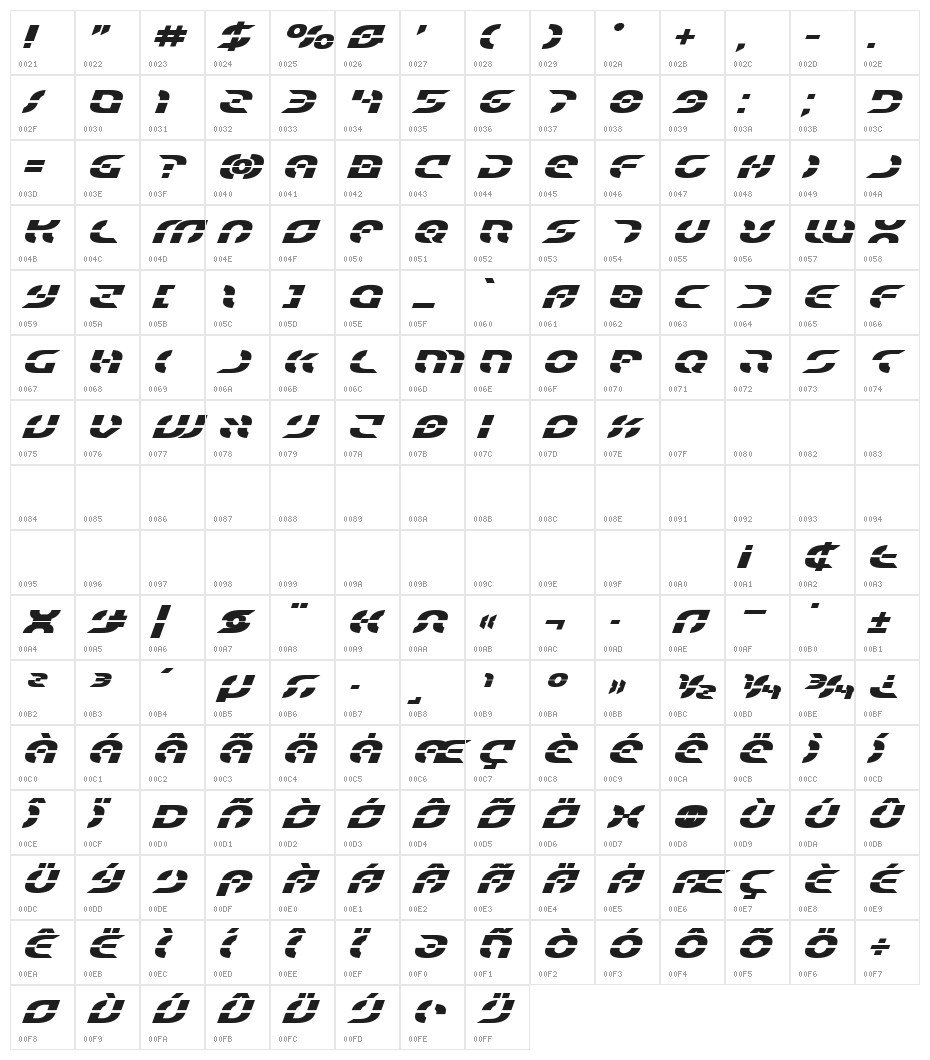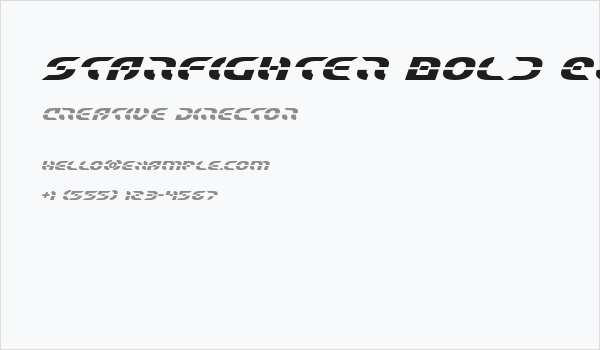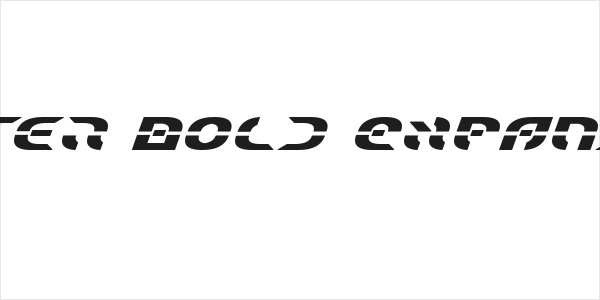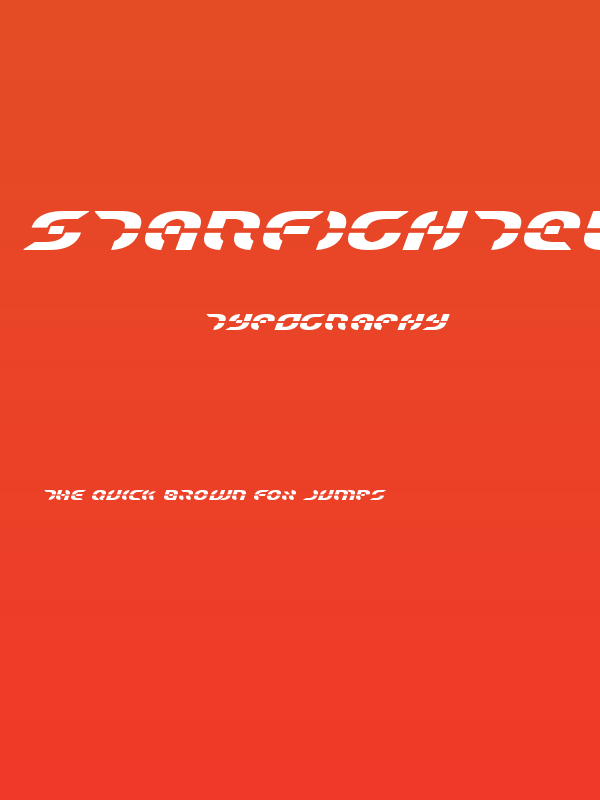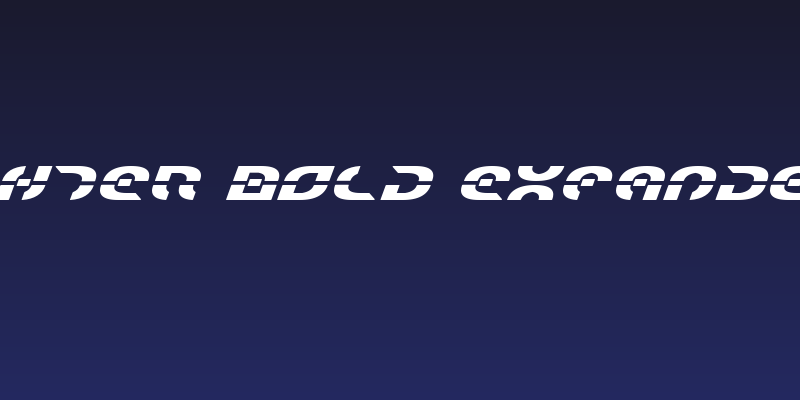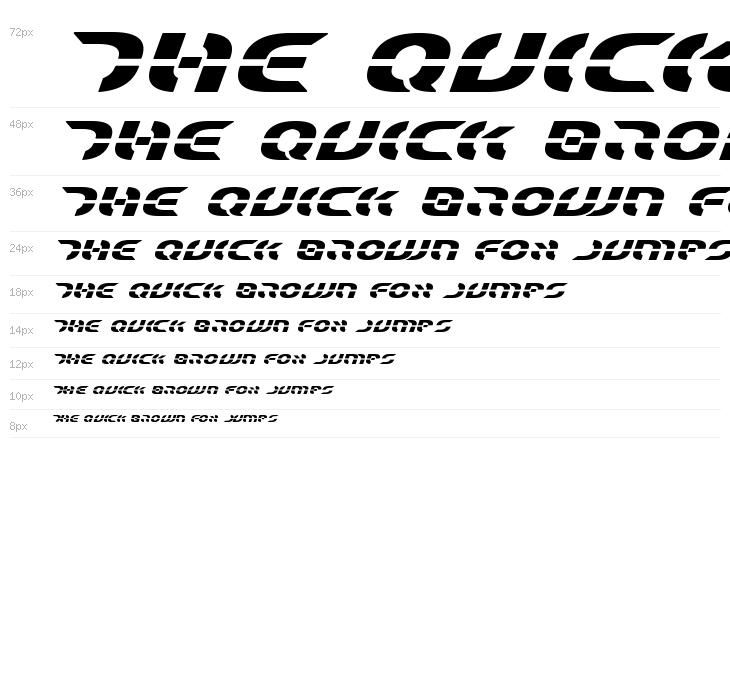
Starfighter Bold Expanded Italic Font
Starfighter Bold Expanded Italic Description
This font features a bold and expanded style with a futuristic and dynamic appearance. The characters are italicized, giving them a sense of motion and speed. The design includes sharp angles and geometric shapes, creating a modern and edgy look. The uppercase and lowercase letters maintain a consistent style, with unique cutouts and slashes that add to the font's distinctive character. The numbers and special characters follow the same design principles, ensuring a cohesive appearance across all glyphs. This font is ideal for projects that require a strong, impactful visual presence.